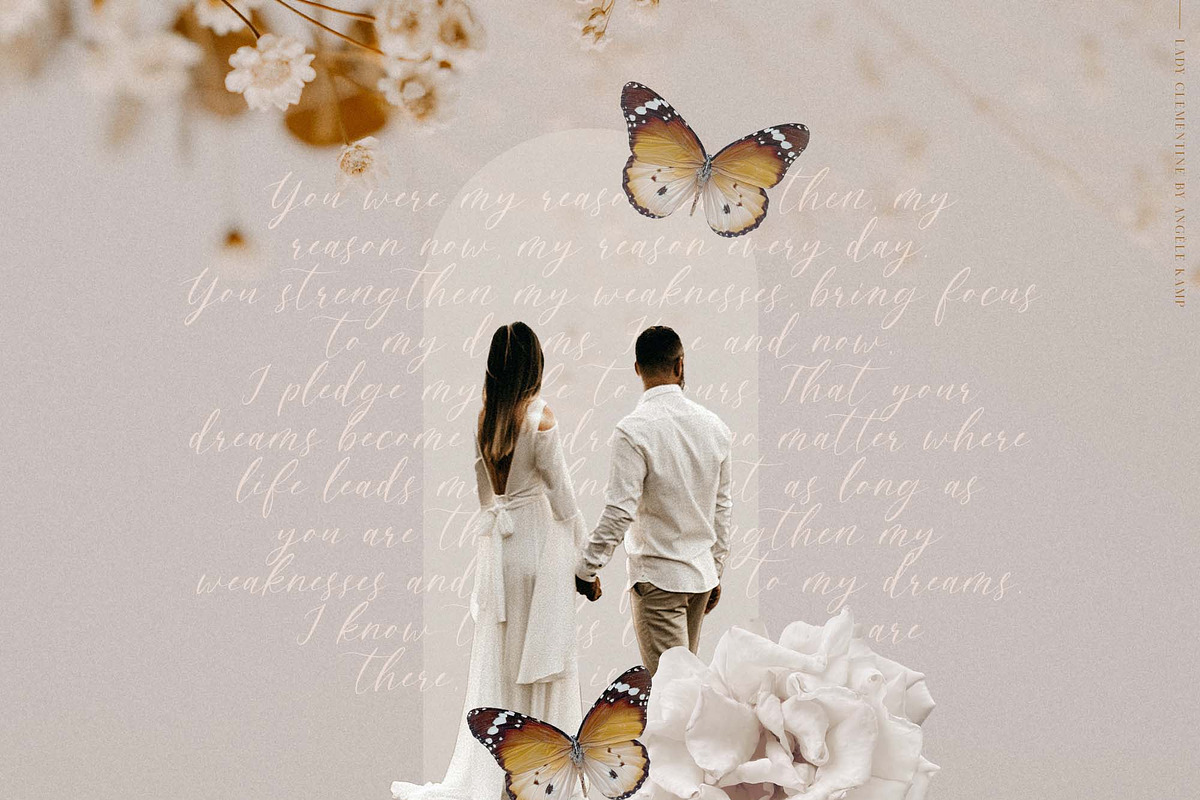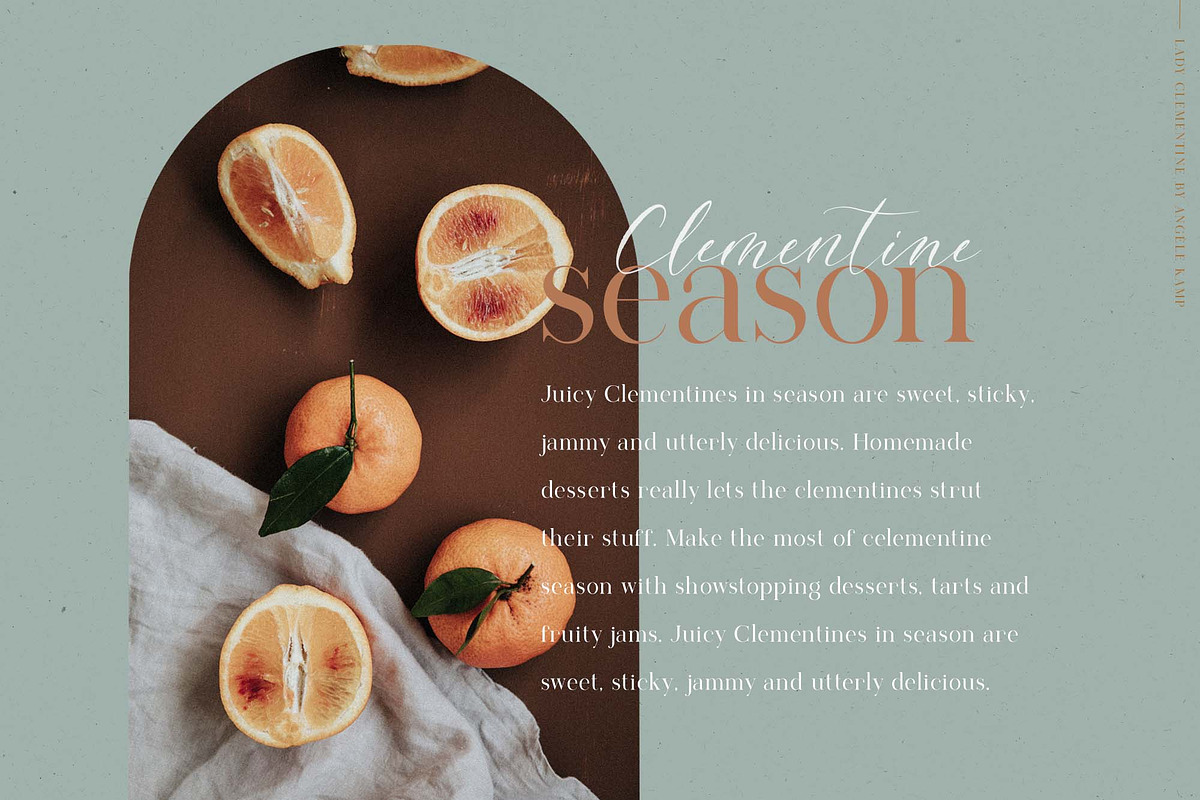
Meet Lady Clementine, a script font paired with a luxurious serif font. A beautiful combination of fonts that will give your designs elegance and style.
The script font has a touch of texture to make it look like authentic modern calligraphy handwriting. And the serif is an elegant typeface that complements the script perfectly.
This elegant wedding font duo is timeless and can not be missed in your font collection. It is well suited for wedding invitations, save the date cards, stylish logos, and feminine branding.